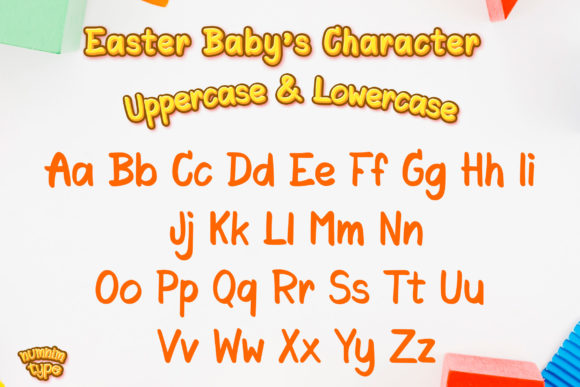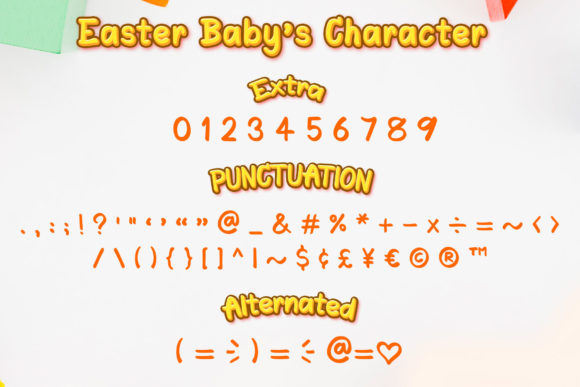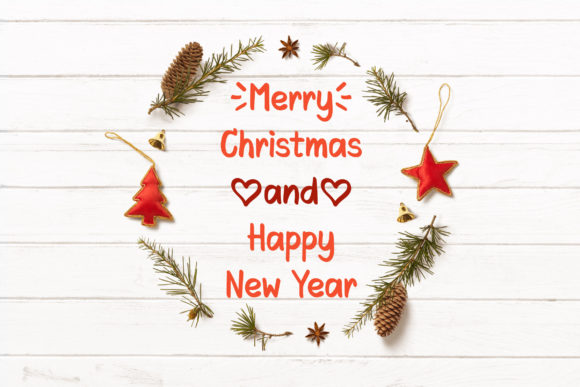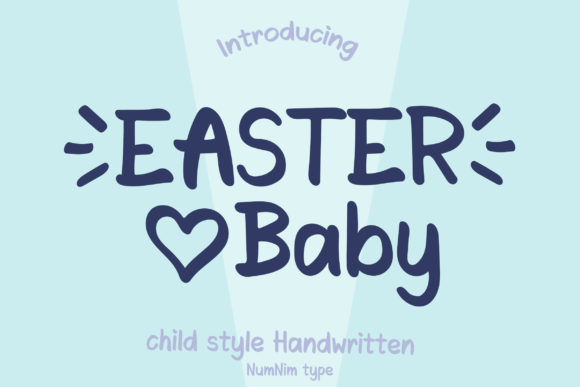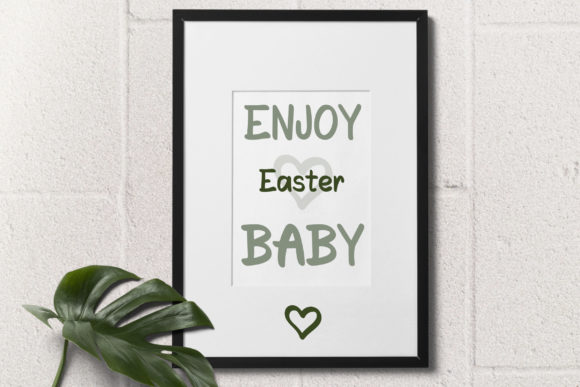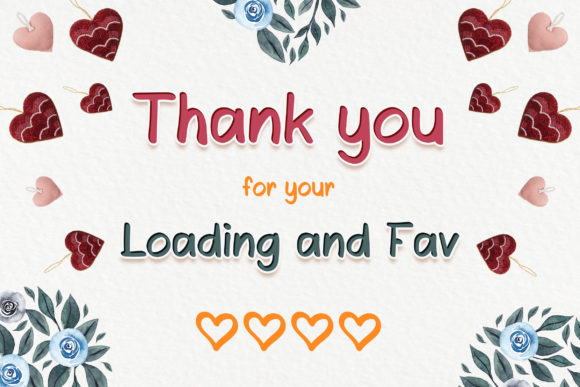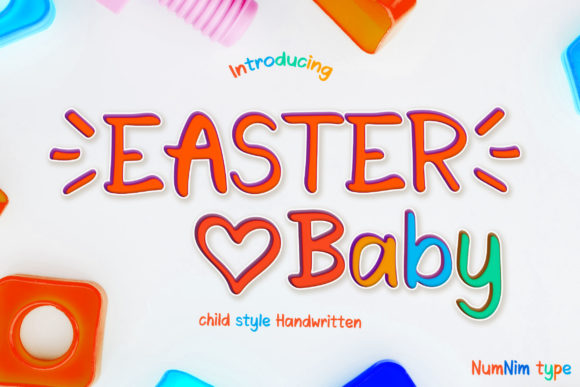
Easter Baby Font: The Perfect Addition to Your Easter Designs
Are you looking for a font that captures the sweet and playful spirit of Easter? Look no further than the Easter Baby Font! This joyful and friendly handwritten font is perfect for creating lovely designs for school or child-related projects. With its cute doodle elements and versatile style, you’ll fall in love with the Easter Baby Font and want to use it again and again.
What Makes Easter Baby Font So Special?
The Easter Baby Font is a unique and charming font that is sure to bring a smile to anyone’s face. Its sweet and playful style makes it perfect for a variety of design projects, from Easter cards and invitations to educational materials and children’s crafts. The font features cute doodle elements, including Easter-themed decorations and illustrations, that add a touch of whimsy and fun to any design.
Key Features of Easter Baby Font
- Handwritten style: The Easter Baby Font has a warm and friendly handwritten style that is perfect for creating personal and engaging designs.
- Cute doodle elements: The font features a range of cute doodle elements, including Easter-themed decorations and illustrations, that add a touch of whimsy and fun to any design.
- Versatile style: The Easter Baby Font is versatile and can be used for a variety of design projects, from Easter cards and invitations to educational materials and children’s crafts.
How to Use Easter Baby Font in Your Designs
The Easter Baby Font is easy to use and can be incorporated into a variety of design projects. Here are a few ideas to get you started:
- Easter cards and invitations: Use the Easter Baby Font to create adorable Easter cards and invitations that are sure to delight your friends and family.
- Educational materials: The Easter Baby Font is perfect for creating educational materials, such as worksheets and activity sheets, for children.
- Children’s crafts: Use the Easter Baby Font to create fun and engaging children’s crafts, such as Easter-themed coloring pages and craft instructions.
- Social media graphics: The Easter Baby Font is also perfect for creating social media graphics, such as Easter-themed Facebook posts and Instagram stories.
Tips and Tricks for Getting the Most Out of Easter Baby Font
Here are a few tips and tricks for getting the most out of the Easter Baby Font:
- Experiment with different colors: The Easter Baby Font looks great in a variety of colors, so don’t be afraid to experiment and find the perfect color scheme for your design.
- Use with other Easter-themed graphics: The Easter Baby Font pairs perfectly with other Easter-themed graphics, such as Easter eggs, bunnies, and flowers.
- Add your own illustrations: The Easter Baby Font is perfect for adding your own illustrations and doodles to your designs.
The Easter Baby Font is a joyful and friendly handwritten font that is perfect for creating lovely designs for school or child-related projects. With its cute doodle elements and versatile style, you’ll fall in love with the Easter Baby Font and want to use it again and again. Whether you’re a designer, crafter, or educator, the Easter Baby Font is sure to become a favorite in your design toolkit.